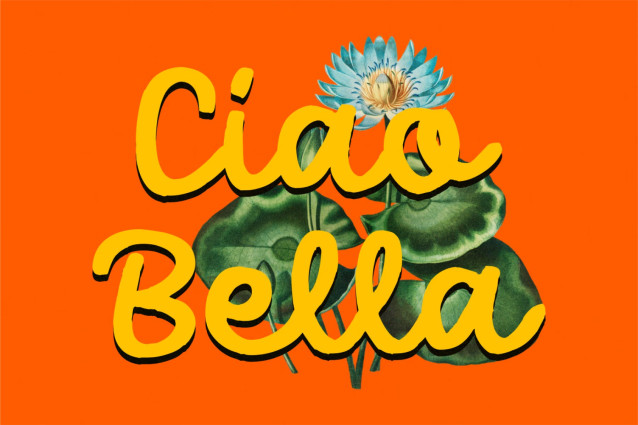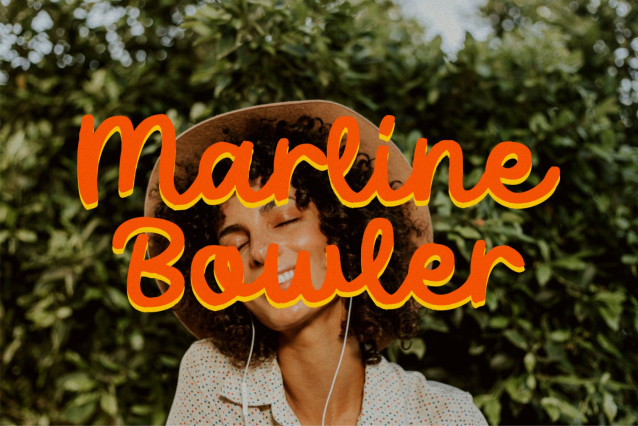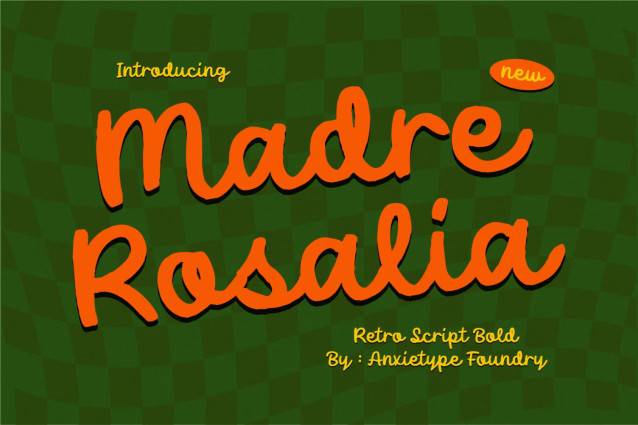
Madre Rosalia is a charming Retro Script typeface that combines nostalgic elegance, expressive lettering, and a warm vintage character. Created by Anxietype Foundry, this font is inspired by classic sign painting and timeless retro typography, bringing a distinctive handcrafted feel to your designs.
Featuring flowing letterforms and an expressive vintage personality, Madre Rosalia is perfect for projects that need a touch of nostalgia, elegance, and old-school charm. Its decorative and stylish appearance makes it ideal for eye-catching headlines, branding, packaging, and display typography.